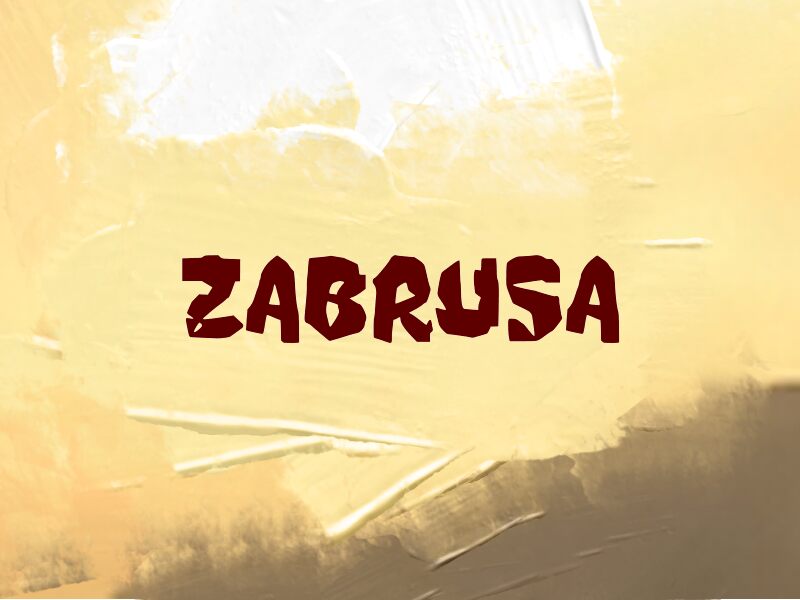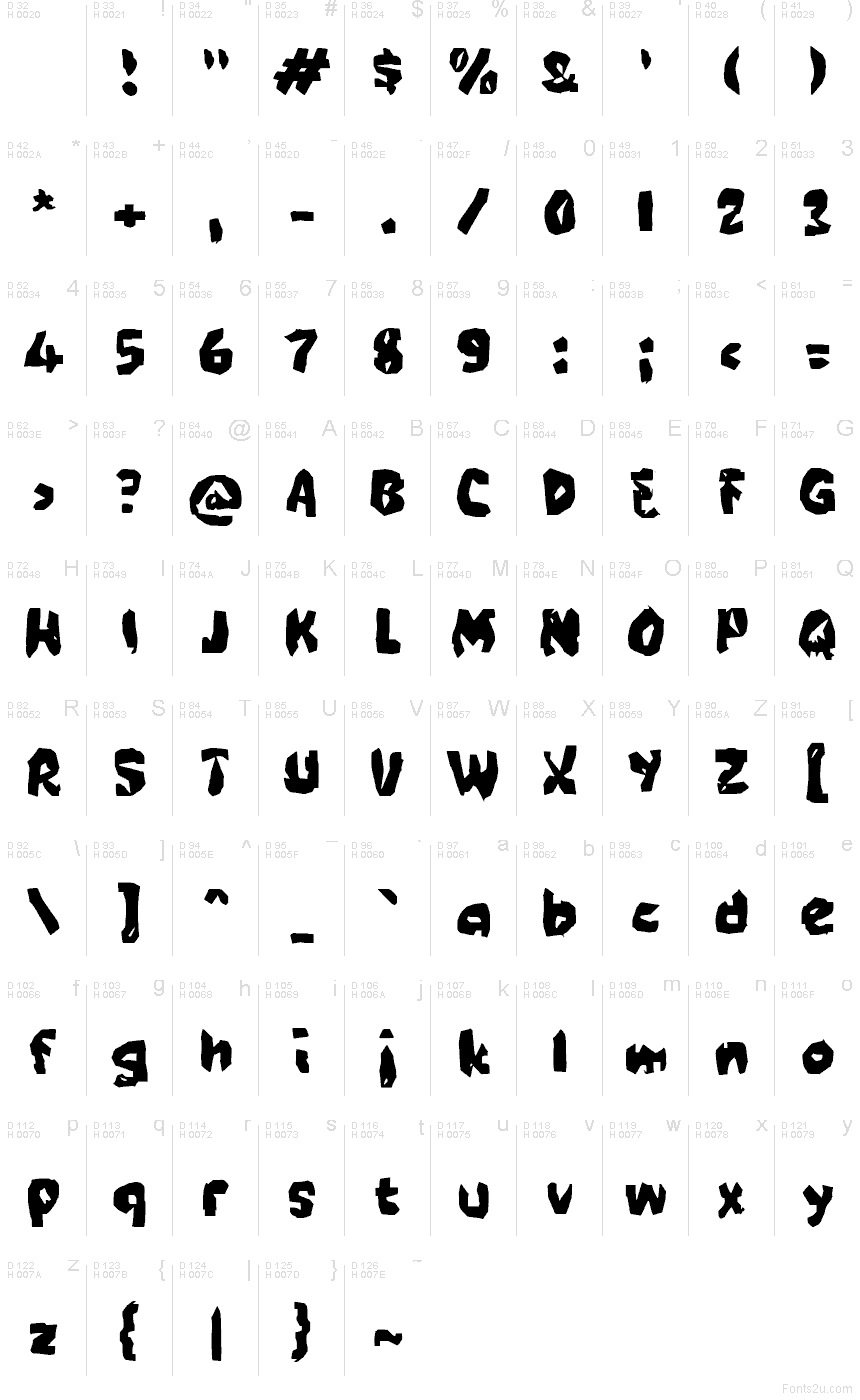
ZABRUSA
Zabrusa font by wepfont.com is a free brush font that looks like it’s been hacked out of black paint with a blunt, impatient brush. Thick, jagged strokes, uneven edges, and cramped negative spaces give it a gritty, hand-scrawled energy that feels almost carved rather than written. The letters sit close and heavy, creating dense, inky word shapes that immediately pull focus and set a raw, rebellious mood.
Using Zabrusa, you get a typeface that shines on horror posters, underground music flyers, extreme sports branding, bold merch graphics, streetwear tags, and edgy social media promos. This free font works beautifully when you let it run large and loud, then balance it with a clean sans serif for supporting text. Keep Zabrusa for short, punchy phrases or logos where you want the texture and chaos to do the talking.